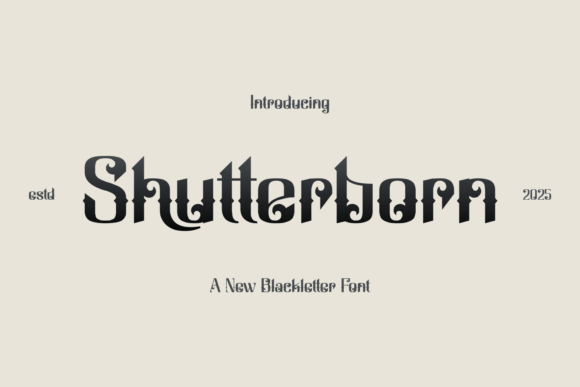
Introducing Shutterborn Font: A Sleek and Modern Blackletter Font
In the world of typography, fonts play a crucial role in conveying the tone and personality of a brand, product, or creative project. With the ever-evolving landscape of design, it’s essential to stay ahead of the curve with fresh and innovative fonts that capture the essence of modern style. One such font that has been making waves in the design community is Shutterborn, a sleek and modern blackletter font that seamlessly blends sharp gothic forms with smooth, flowing curves.
What is Shutterborn Font?
Shutterborn is a cutting-edge blackletter font that combines the elegance of traditional gothic typography with a futuristic twist. Its unique design features sharp, angular lines and smooth curves, creating a captivating visual experience that’s perfect for a wide range of applications, from movie titles and logos to fantasy branding and album art.
Key Features of Shutterborn Font
- Sleek and Modern Design: Shutterborn boasts a sleek and modern aesthetic that’s perfect for designers looking to create bold and eye-catching visuals.
- Blackletter Style: With its roots in traditional gothic typography, Shutterborn features sharp, angular lines and intricate details that evoke a sense of history and heritage.
- Smooth Curves: The font’s smooth curves and flowing lines add a touch of elegance and sophistication, balancing out the boldness of the blackletter style.
- Subtle Gradient Styling: Shutterborn’s subtle gradient styling gives it a cinematic, almost futuristic feel that’s perfect for movie titles, logos, and other high-impact applications.
- Inventive Character Shapes: The font’s inventive character shapes and unique design elements set it apart from more traditional blackletter fonts, making it an excellent choice for designers looking to create something truly unique.
Ideas for Using Shutterborn Font
With its versatility and unique design, Shutterborn is suitable for a wide range of applications, including:
- Movie Titles: Shutterborn’s cinematic feel and bold design make it perfect for movie titles, adding a touch of drama and sophistication to any film.
- Logos: The font’s sleek and modern aesthetic makes it an excellent choice for logos, particularly for brands looking to create a bold and memorable visual identity.
- Fantasy Branding: Shutterborn’s gothic roots and futuristic twist make it an ideal choice for fantasy branding, adding a touch of magic and mystery to any product or service.
- Album Art: The font’s unique design and cinematic feel make it perfect for album art, adding a touch of drama and sophistication to any music release.
Typography Tips for Using Shutterborn Font
To get the most out of Shutterborn, here are some typography tips to keep in mind:
- Experiment with Font Sizes: Shutterborn looks great in a variety of font sizes, from large and bold to small and subtle. Experiment with different sizes to find the perfect balance for your design.
- Play with Color: The font’s subtle gradient styling and smooth curves make it perfect for experimenting with color. Try pairing Shutterborn with bold and bright colors to create a truly eye-catching design.
- Mix and Match with Other Fonts: Shutterborn pairs well with a variety of other fonts, from serif and sans-serif fonts to script and decorative fonts. Experiment with different combinations to find the perfect match for your design.
The Benefits of Using Shutterborn Font
So why choose Shutterborn for your next design project? Here are just a few benefits of using this versatile and innovative font:
- Unique Design: Shutterborn’s unique design and blend of traditional and modern elements make it a standout in any design project.
- Versatility: The font’s versatility and wide range of applications make it an excellent choice for designers looking to create a cohesive visual identity across multiple platforms.
- High-Impact Visuals: Shutterborn’s bold and dramatic design makes it perfect for creating high-impact visuals that grab attention and leave a lasting impression.
In conclusion, Shutterborn is a sleek and modern blackletter font that offers a unique blend of traditional and innovative design elements. With its sharp gothic forms, smooth curves, and subtle gradient styling, Shutterborn is perfect for a wide range of applications, from movie titles and logos to fantasy branding and album art. Whether you’re a seasoned designer or just starting out, Shutterborn is an excellent choice for anyone looking to create bold and eye-catching visuals that leave a lasting impression.